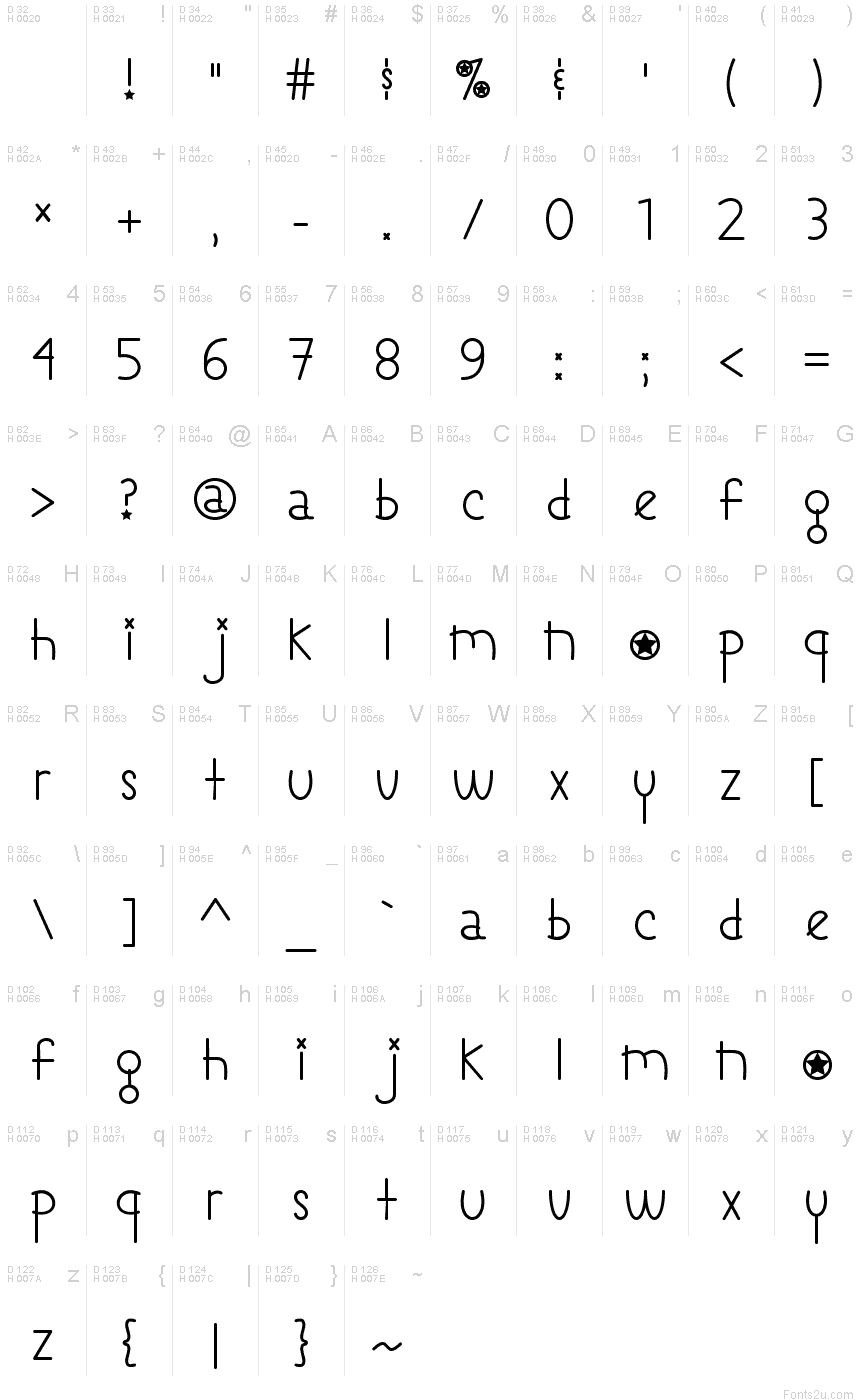
Rebel Chick by Misti Hammers of Misti's Fonts is a free whimsical decorative display font with tall, slender strokes and loosely drawn curves. Its letters shift between compact loops and broad rounded forms, creating an uneven, lively silhouette. A star enclosed in one round letter supplies its clearest signature detail.
Youth-oriented branding is the strongest fit, especially for boutique logos, T-shirt graphics, and party invitations. The star motif also suits children's entertainment, though youth branding is its clearest role.